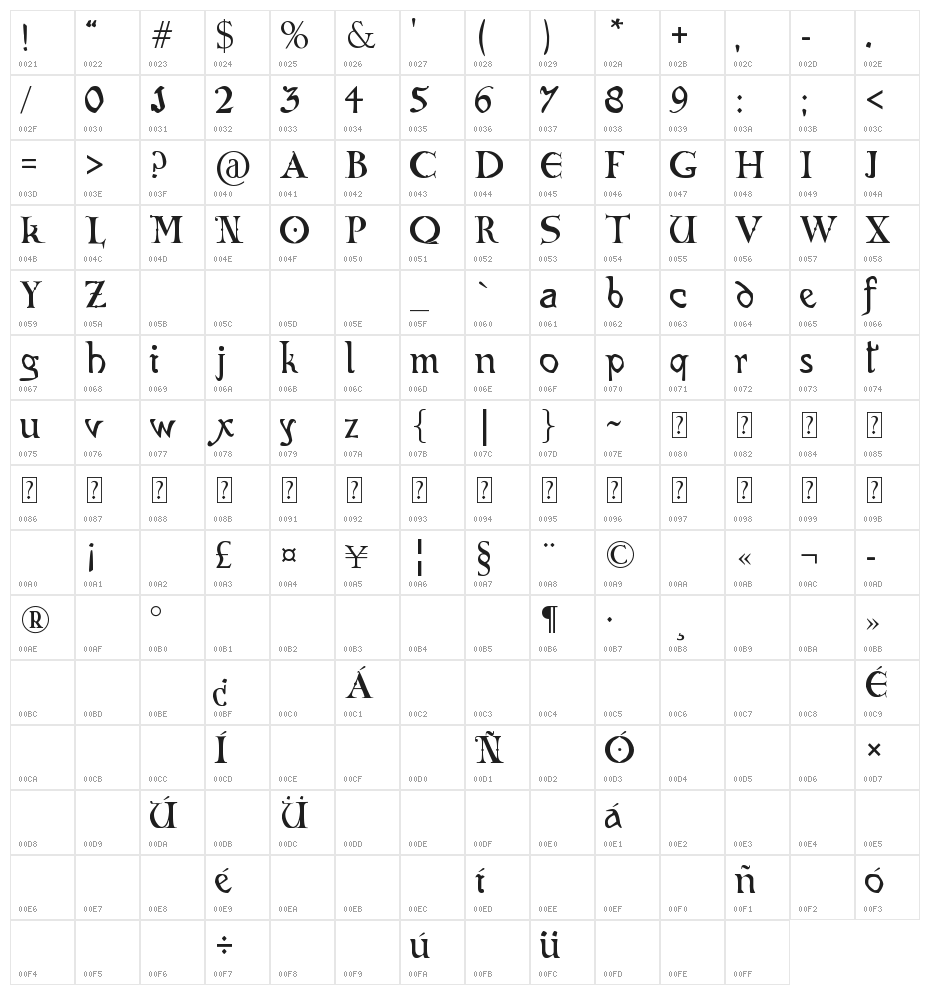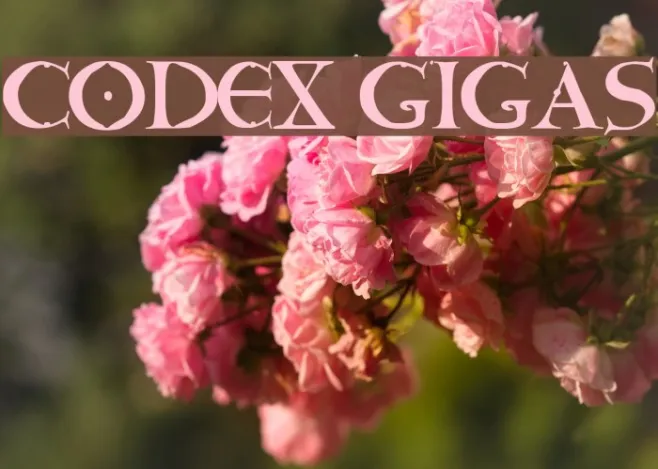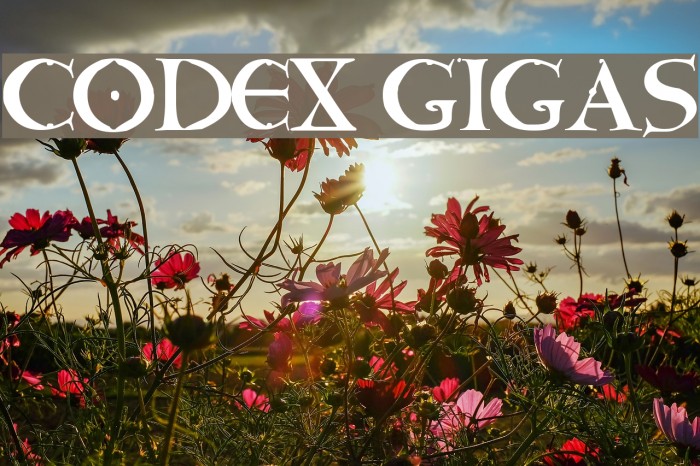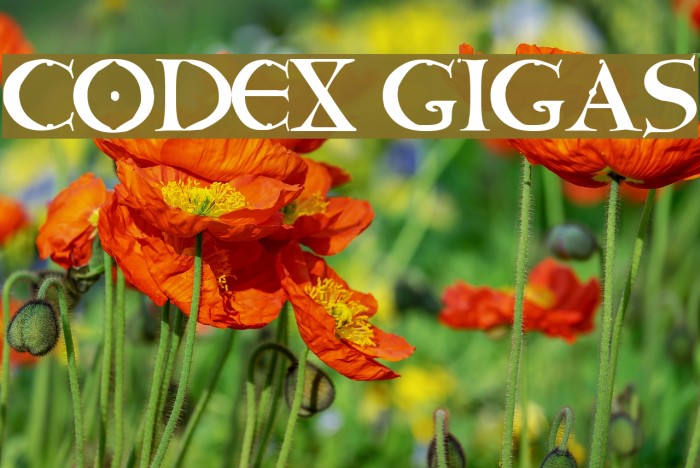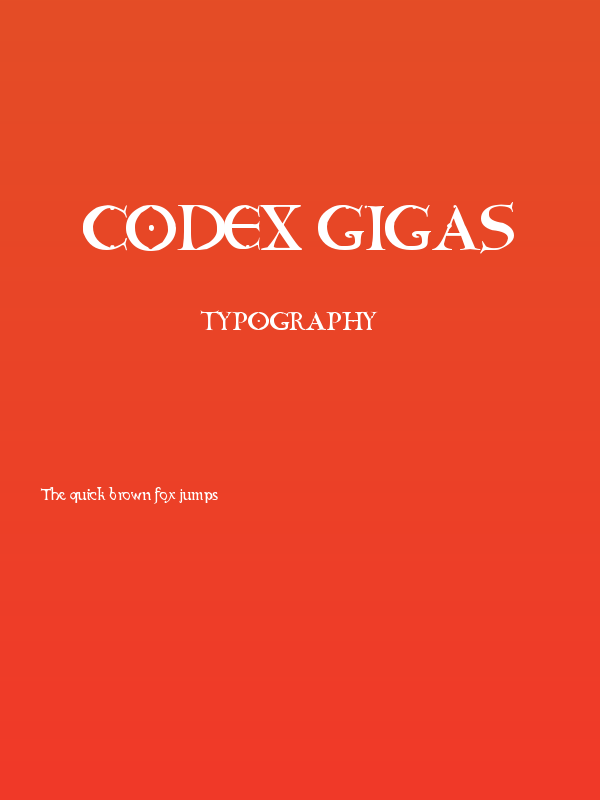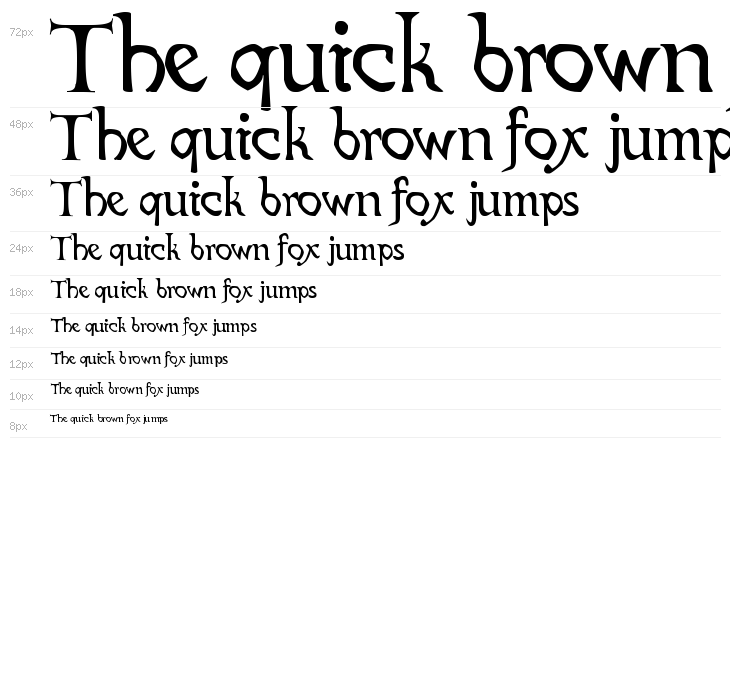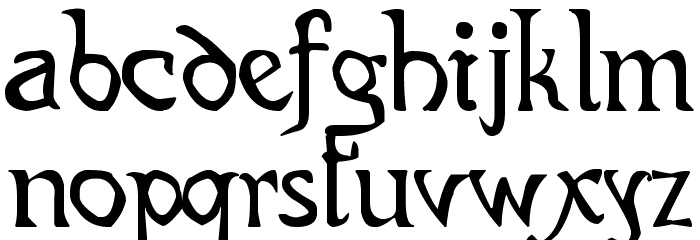
CODEX GIGAS Font
CODEX GIGAS Description
This font exhibits a distinct medieval and gothic style, characterized by its sharp, angular serifs and dramatic stroke contrast. The uppercase letters are bold and commanding, with intricate detailing that adds a sense of historical depth. The lowercase letters maintain a consistent style, with unique curves and flourishes that enhance the overall aesthetic. Numbers and special characters follow the same design principles, ensuring a cohesive look across all glyphs. The font's unique personality makes it ideal for projects that require a touch of antiquity and elegance.
| Use Case | Headlines, Logos, Decorative text |
| Proposed Projects | Ideal for historical documents, fantasy book covers, themed event invitations, and branding that requires a vintage or gothic touch. |